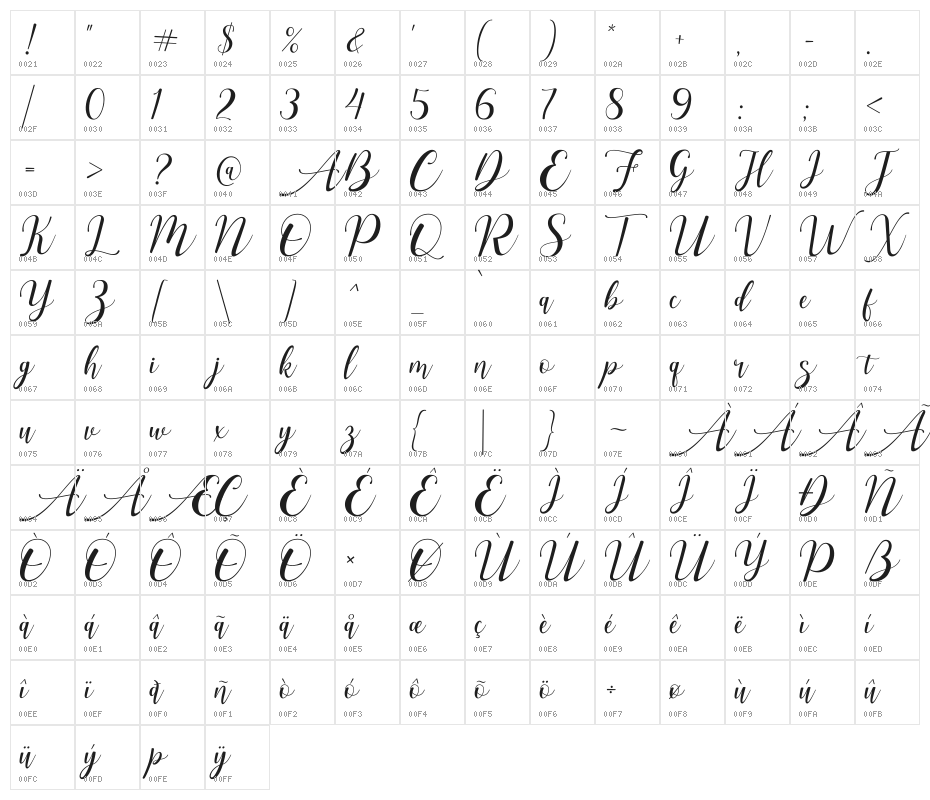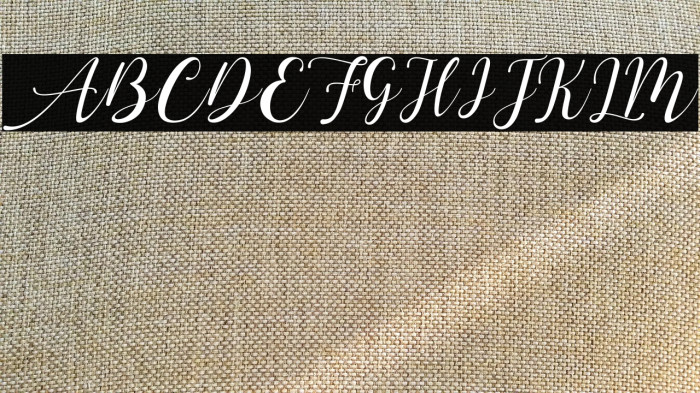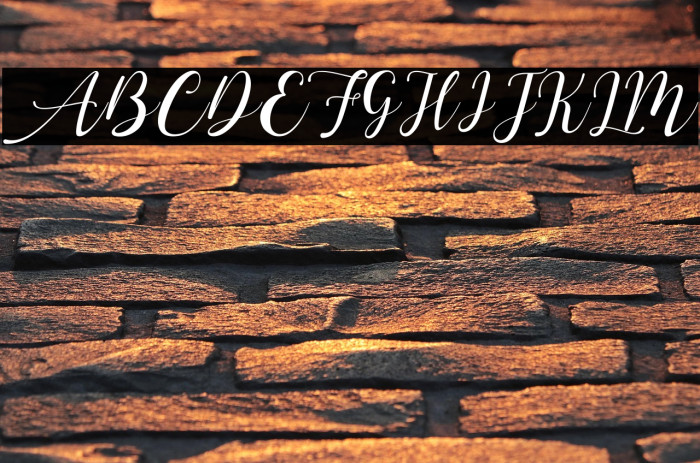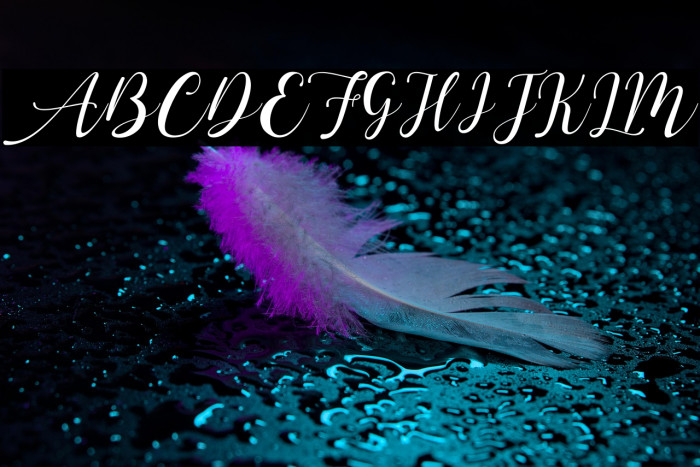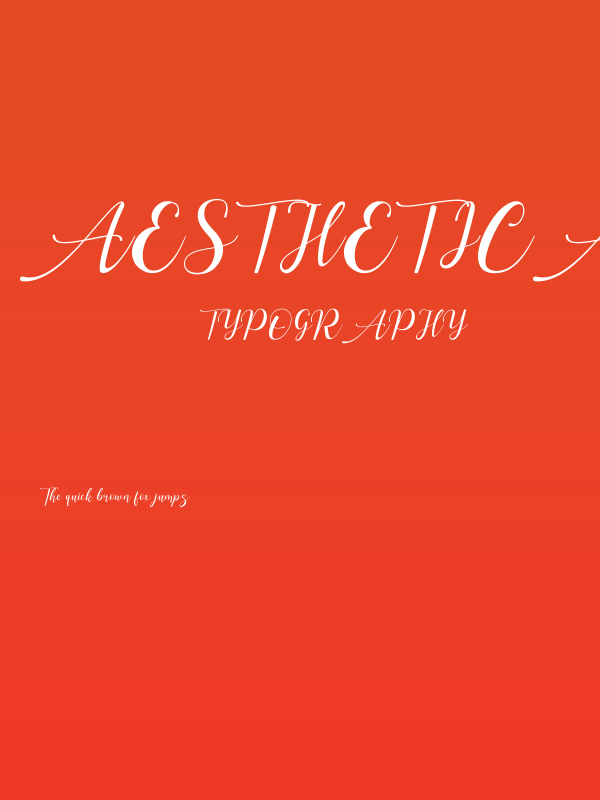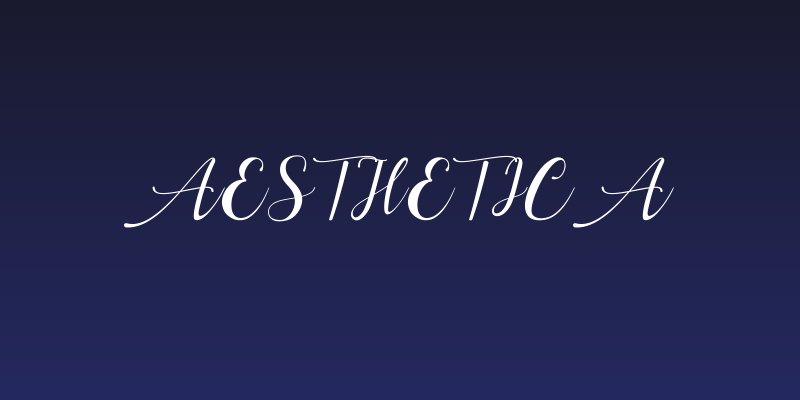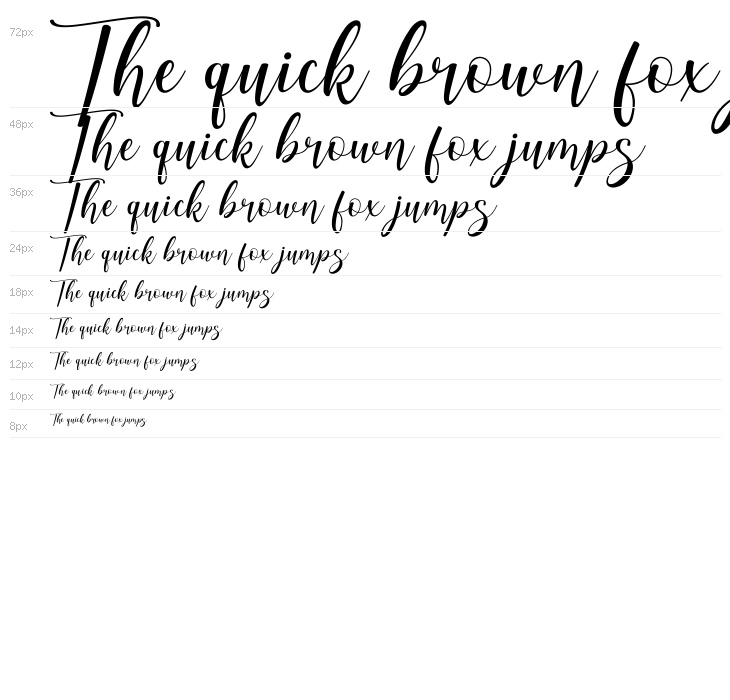
aesthetica Font
aesthetica Description
This font exudes elegance and sophistication with its flowing, cursive style. The uppercase letters are characterized by their graceful loops and swashes, creating a sense of movement and fluidity. The lowercase letters maintain a consistent style, with smooth curves and a slightly slanted orientation, enhancing the script-like appearance. The numerals are designed to complement the letters, featuring similar curves and a harmonious flow. Special characters are thoughtfully integrated, maintaining the overall aesthetic. This font is ideal for projects that require a touch of elegance and personal flair.
| Proposed Projects | Ideal for wedding invitations, elegant branding, personal stationery, and decorative signage. |